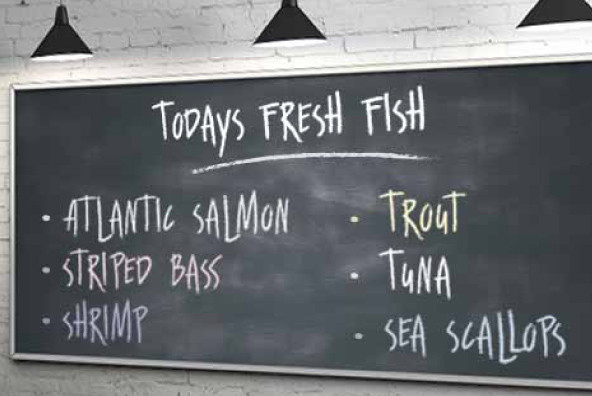
Wallet Font
Wallet Felt Bold
Wallet Chalk
Wallet Felt
Wallet is an expressive handwritten font with loads of personality, suitable for many different projects. It comes in three styles: Felt, Felt bold and Chalk. Wallet has 391 glyphs and supports multiple languages. Opentype features, such as contextual alternates, for replacing beginning and ending glyphs as you type and double letter ligatures are also included. To make full use of its potential Wallet requires an opentype-savvy application.